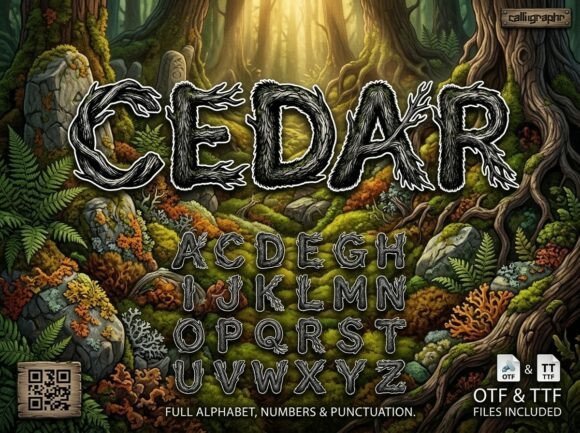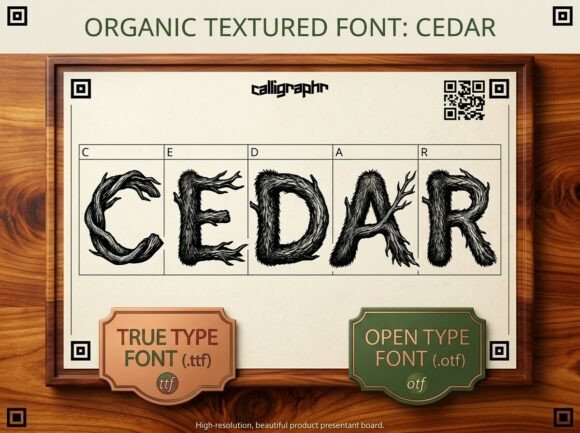
Unleash Your Creativity with Cedar Font: A Raw Display Typeface
Are you looking for a font that can help you tap into your creative vision and bring a sense of wildness to your designs? Look no further than Cedar, a raw display typeface that embodies the “untamed-and-organic” soul. This bold and eye-catching font is perfect for designers and crafters who want to add a touch of the natural world to their work.
The Inspiration Behind Cedar Font
Cedar font is inspired by the natural world, with bold letterforms constructed from rhythmic, hand-drawn textures of thick fur and gnarled tree branches. The result is a look that is part beast and part forest, evoking a sense of power and wildness. The font’s heavy graphic weight and primitive personality make it perfect for projects that require a strong, attention-grabbing presence.
Perfect for Independent Folklore Branding and Wilderness Retreat Logos
Cedar font is the premier choice for independent folklore branding, wilderness retreat logos, mythological book covers, and high-impact “natural-and-neolithic” social media headers. Its unique blend of organic and beast-like elements makes it perfect for projects that require a sense of adventure and a connection to the natural world.
Key Features of Cedar Font
- Raw and Organic Look: Cedar font features bold letterforms with a raw, organic look that is reminiscent of the natural world.
- Hand-Drawn Textures: The font’s hand-drawn textures of thick fur and gnarled tree branches add a sense of depth and tactility to your designs.
- Heavy Graphic Weight: Cedar font has a heavy graphic weight that makes it perfect for high-impact designs that require attention.
- Primitive Personality: The font’s primitive personality adds a sense of wildness and adventure to your designs.
How to Use Cedar Font in Your Designs
Cedar font is perfect for a wide range of design projects, from branding and logos to book covers and social media headers. Here are a few tips for using Cedar font in your designs:
- Use it as a Statement Piece: Cedar font is perfect for use as a statement piece in your designs. Use it to draw attention to a headline or title, or to add a touch of drama to your layout.
- Pair it with Natural Imagery: Cedar font pairs perfectly with natural imagery, such as photos of trees, mountains, or wildlife. Use it to add a sense of adventure and exploration to your designs.
- Experiment with Color: Cedar font looks great in a range of colors, from earthy tones like green and brown to bold and bright colors like red and orange. Experiment with different colors to find the perfect look for your design.
Why Choose Cedar Font?
So why choose Cedar font for your design projects? Here are just a few reasons:
- Unique and Eye-Catching: Cedar font is a unique and eye-catching font that will help your designs stand out from the crowd.
- Perfect for Outdoor and Adventure Brands: Cedar font is perfect for outdoor and adventure brands that want to add a sense of wildness and adventure to their designs.
- High-Quality Design: Cedar font is a high-quality design that is perfect for professional designers and crafters.
Cedar font is a raw display typeface that is perfect for designers and crafters who want to add a touch of the natural world to their designs. With its bold letterforms, hand-drawn textures, and heavy graphic weight, Cedar font is the premier choice for independent folklore branding, wilderness retreat logos, mythological book covers, and high-impact “natural-and-neolithic” social media headers. So why wait? Download Cedar font today and unleash your creativity!